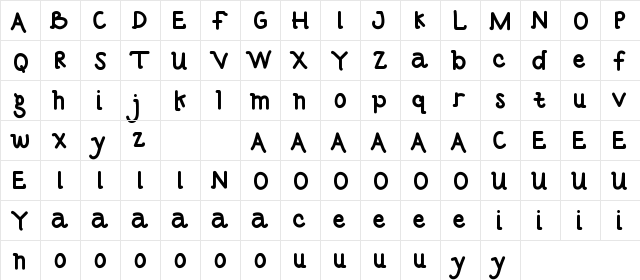
Jazz One Demo Regular
| Foundry | Edric Studio |
| Designer | Saila Nurissalama & Suci Anita |
Design Context for Jazz One Demo Typeface
Jazz One Demo is a composed and adaptable typeface that performs quietly and consistently across a wide range of design contexts.